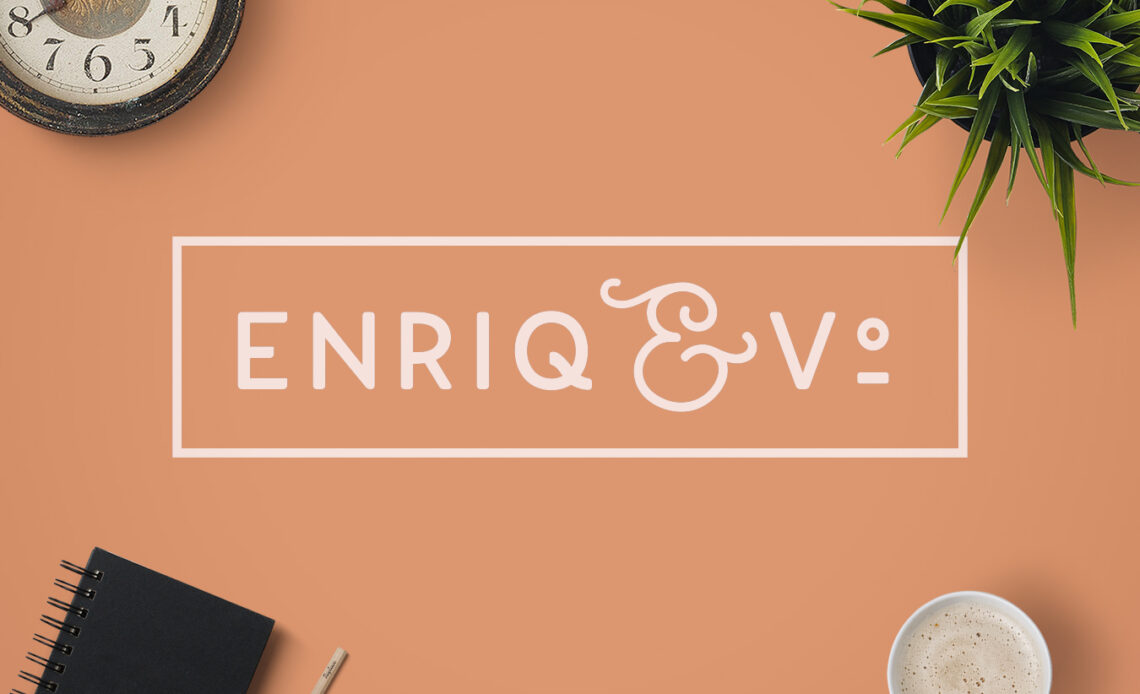
Introducing Enriq Round Font, a masterpiece of elegance and sophistication that will add a touch of beauty and enchantment to your digital creations. With its smooth rounded edge style that combines fashion, class, and modernity, Enriq is a sans serif font that delivers both functionality and visual appeal.
Designed with meticulous attention to detail, Enriq features powerful opentype features and design nuances, making it a harmonious and thoughtfully crafted font. Its graceful curves and soft edges exude an air of sophistication that is sure to leave a lasting impression.
Whether you're creating logos, branding, web design, or any other form of digital media, Enriq Round Font will elevate your projects with its timeless beauty. Its versatility and readability make it an ideal choice for a wide range of applications, from headlines and titles to body text and small print.